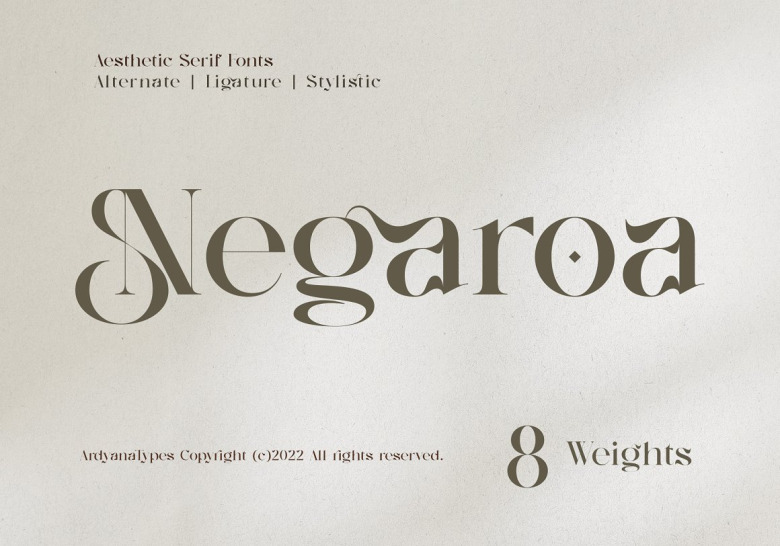
Negaroa Font
Negaroa comes with an aesthetic style and the serif type tagline looks neat and professional with a modern feel to it. It is available in eight weights types ranging from thin through black depending on your preference. Negaroa also possesses the new professional features so it can have an elegant and the attractive image of the company or project for the business purpose. It blends well with the contemporary modern serifs and scripts depicted or forms a strong title and brand identification for an elegant appearance.
Negaroa also supports multiple languages, thus it can be used by any country, and for any language use. It also provides a facility of other Ligatures and styles that will help to make your designs eye-catching. In branding it can be used in branding projects as well as in various designs such as business cards, name tags, uniforms as brand and identity. Billboards, fliers, brochures, stamps, emblems, labels, newspapers, books, clothes, slides, and so on.
Negaroa Aesthetic Serif Font